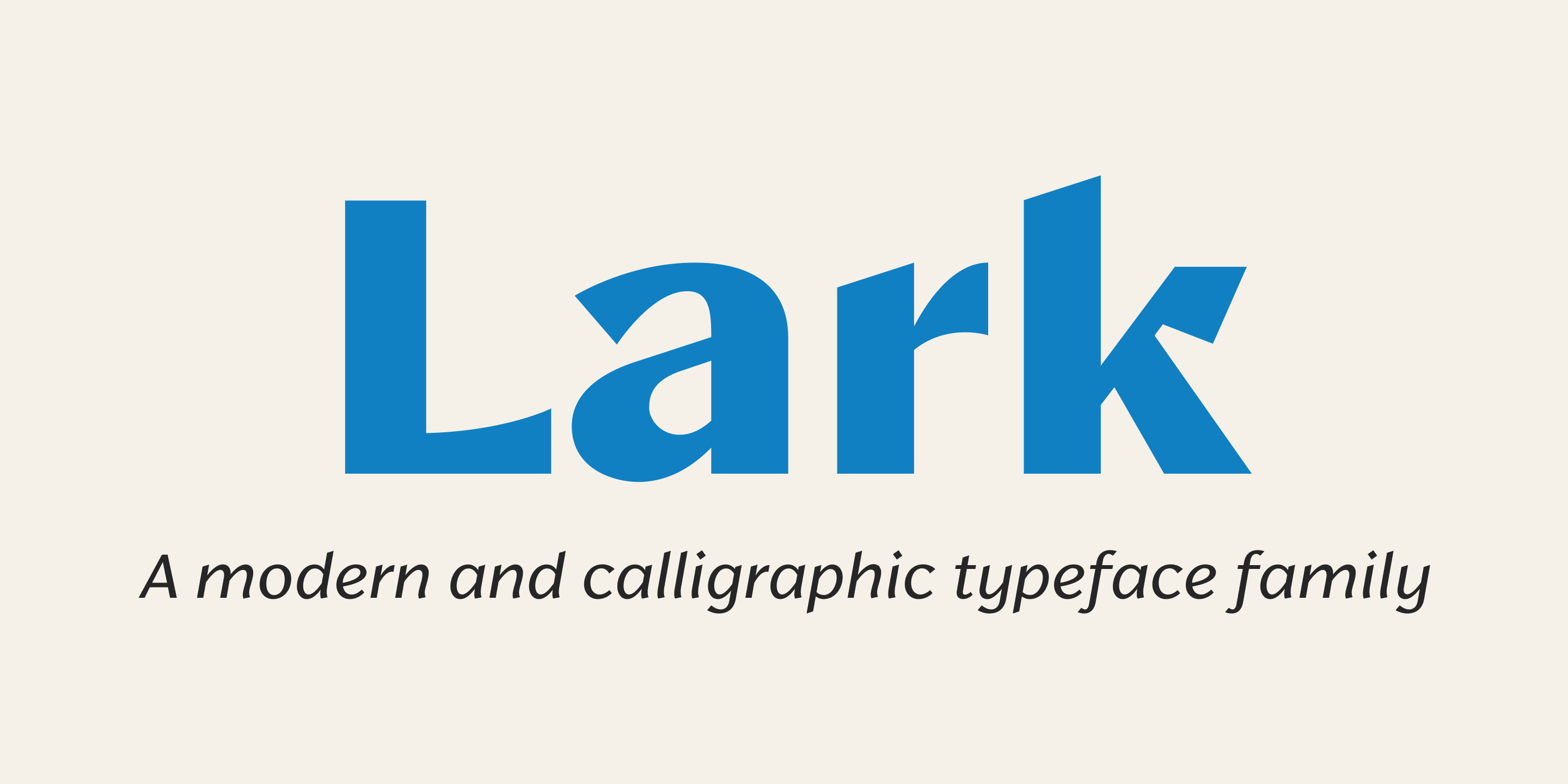
Lark Font is perfect for various design applications including nature-inspired logos, organic product packaging, environmental campaign materials, outdoor adventure branding, wellness center signage, botanical illustrations, eco-friendly websites, natural cosmetics branding, sustainable fashion labels, and fresh typography displays.
What makes Lark Font so exciting is its organic and natural character design that captures the essence of freedom and lightness through typography. The font features flowing, airy letterforms with subtle organic curves and graceful structure that evoke the beauty of nature and birds in flight. Its fresh appearance and uplifting energy make it ideal for projects requiring a natural, refreshing aesthetic that connects with environmentally conscious audiences and creates inspiring brand experiences.
Lark Font comes in multiple font families including Regular, Bold, Light, Thin, and Extended variations, providing designers with comprehensive typographic flexibility for diverse nature-themed projects and organic branding applications.
This refreshing typeface stands out in the competitive font market due to its exceptional natural appeal and versatility. Whether you're creating eco-friendly brand identities, outdoor adventure campaigns, or wellness-focused materials, Lark Font Free Download delivers the perfect balance of elegance and organic charm. The font's thoughtfully crafted letterforms ensure excellent performance across both digital and print media, making it an essential addition to any designer's nature-inspired typography collection. Its unique character set supports various design contexts while maintaining consistent fresh quality throughout different applications and environmentally conscious creative projects.